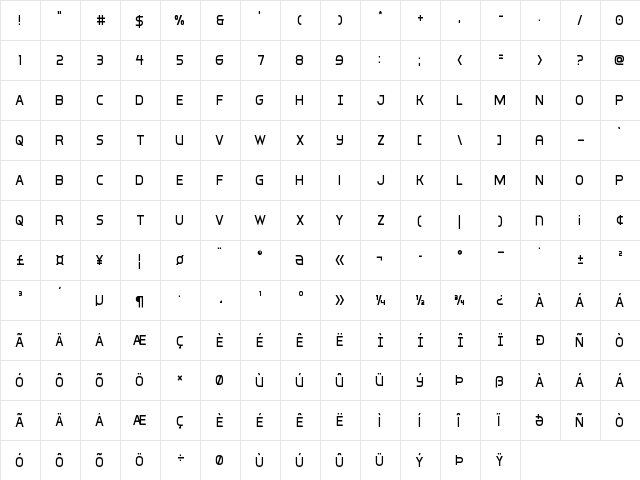
Inter-Bureau Condensed Condensed
Design Context for Inter-Bureau Condensed Typeface
Inter-Bureau Condensed offers clean, dependable letterforms without strong stylistic allegiance, making it a practical choice for designers who need flexibility. The condensed width makes it efficient for tight spaces without sacrificing legibility.